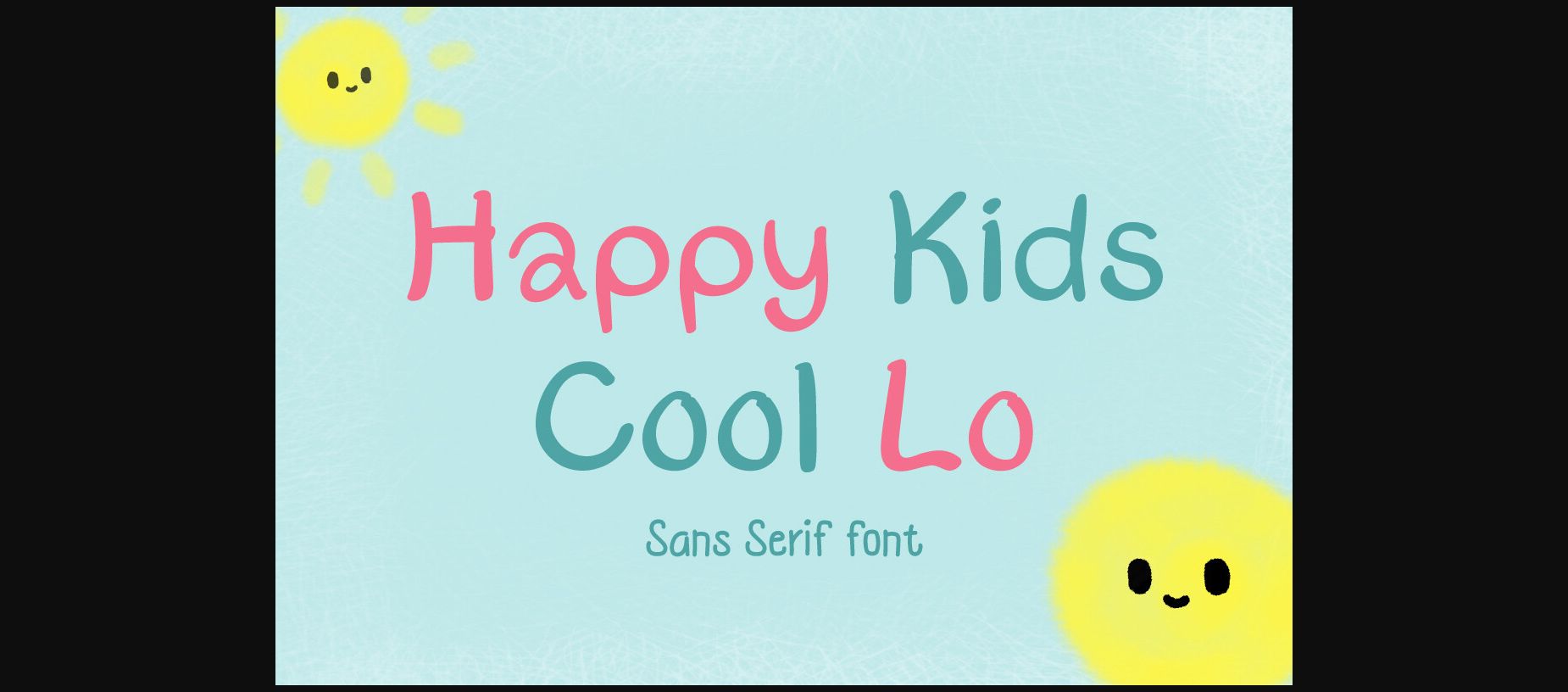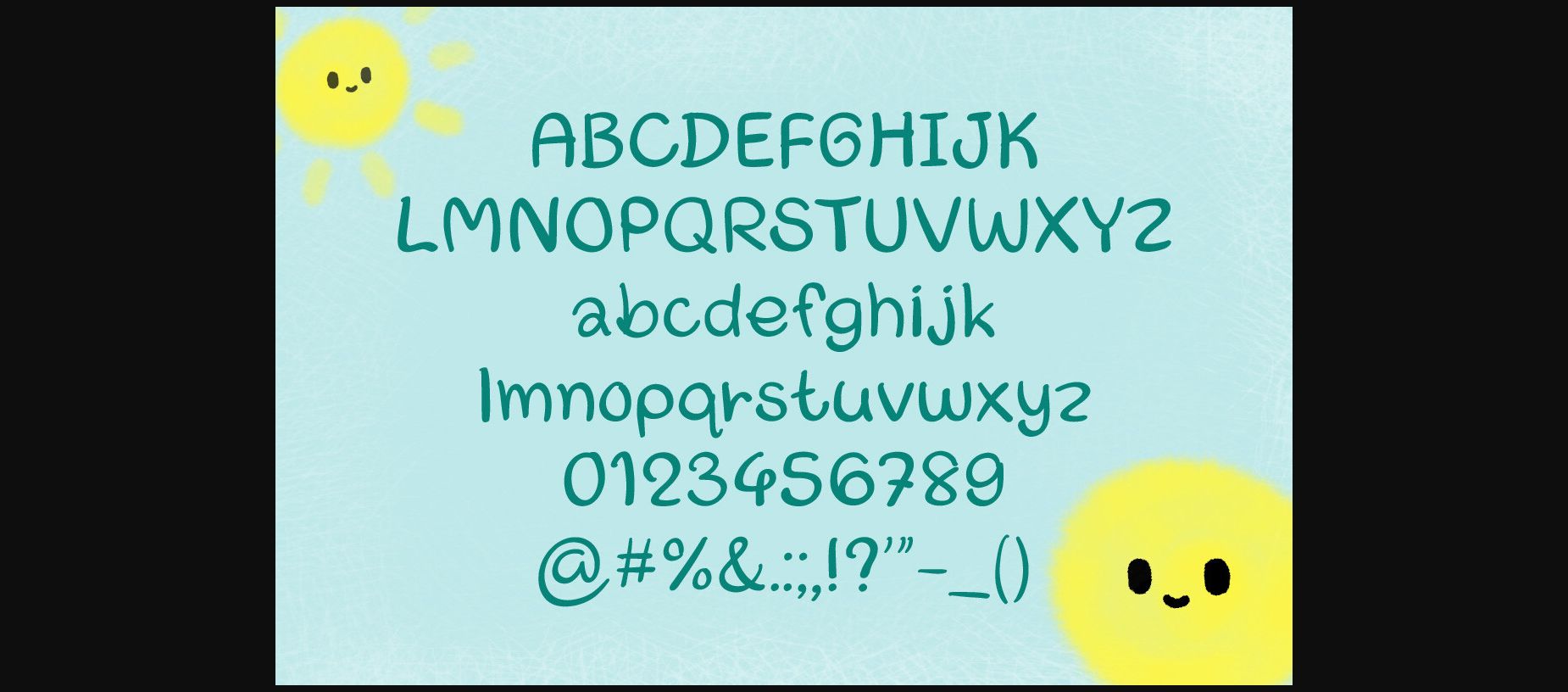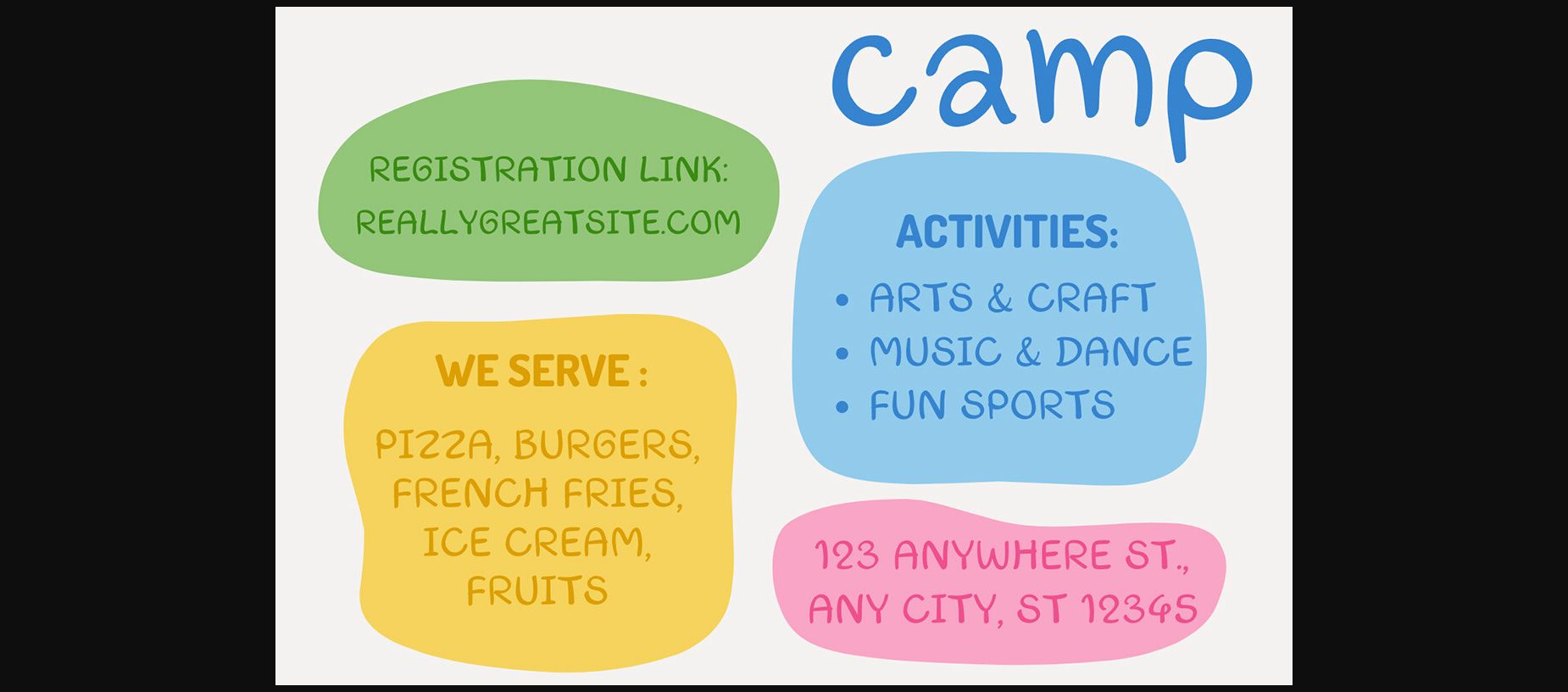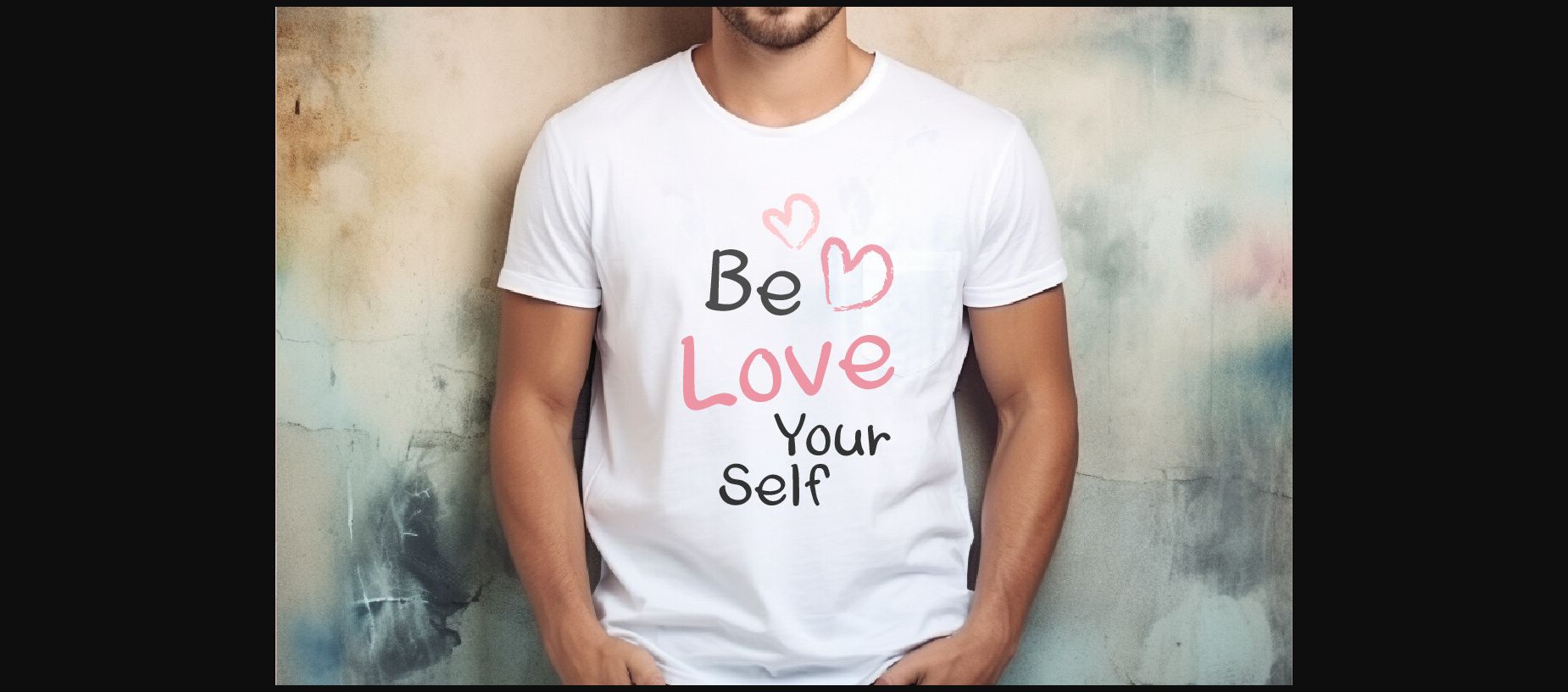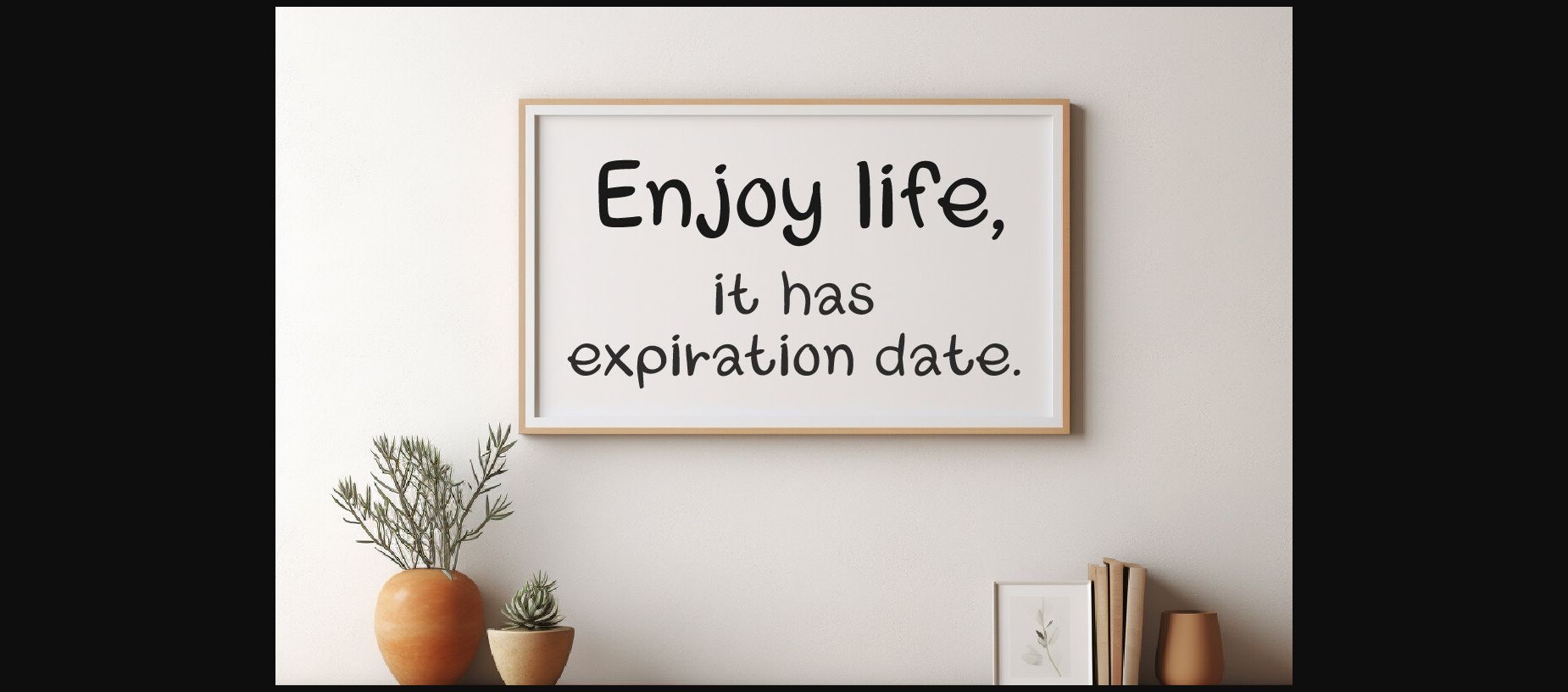
HomeSans Serif FontsHappy Kids Cool Lo Font Sans Serif Fonts Happy Kids Cool Lo Font FacebookXPinterestWhatsApp 1 of 7 ... Happy Kids Cool Lo Font Poster 2... Happy Kids Cool Lo Font Poster 3... Happy Kids Cool Lo Font Poster 4... Happy Kids Cool Lo Font Poster 5... Happy Kids Cool Lo Font Poster 6... Happy Kids Cool Lo Font Poster 7... About Happy Kids Cool Lo Font Happy kids Cool Lo is a cute, fun, a cute and modern sans serif font style. It would be an awesome addition to your fun projects or designs. DOWNLOAD NOW People also explored Anya Font Bright Cupid Font Roboto Font Rayne Susan Font The Magistica Bright Font Boreland Font Saturday Feelings Font Adinda Script Influential Font 408 0 TagsHappy Kids Cool Lo Font Previous articleExplore Changes FontNext articleHielda Font LEAVE A REPLY Cancel reply Comment: Please enter your comment! Name:* Please enter your name here Email:* You have entered an incorrect email address! Please enter your email address here Website: Save my name, email, and website in this browser for the next time I comment. Personal Use Free Kitsor Rauttie Personal Use Free Read more about this font Boldist Personal Use Free Read more about this font Hubbies Personal Use Free Read more about this font Stereofidelic Personal Use Free Read more about this font BLOG Transform Your Website: Elevate Your Typography with 7 Best Web Font Generators Are you ready to transform your website's typography from ordinary to extraordinary? Great! Today, we're diving into the world of web font generators, which... Free vs Paid Fonts: Why Investing in Premium Fonts Is Worth It Top 7 Google Fonts Alternatives for Faster and Privacy-Friendly Web Design (2025) Best Fonts for T-Shirt Design – Top 2025 Picks